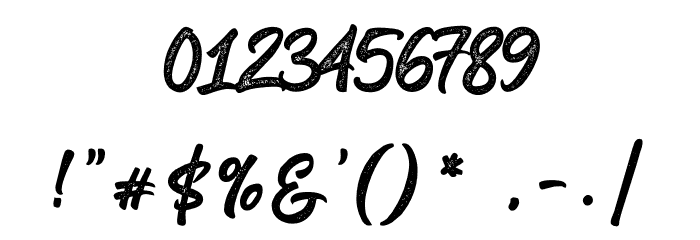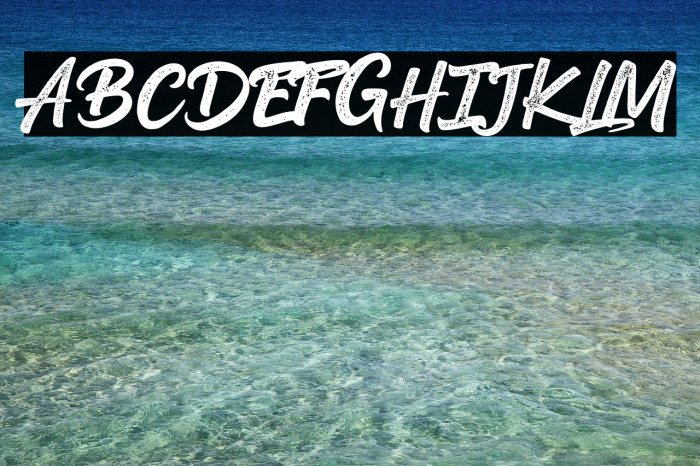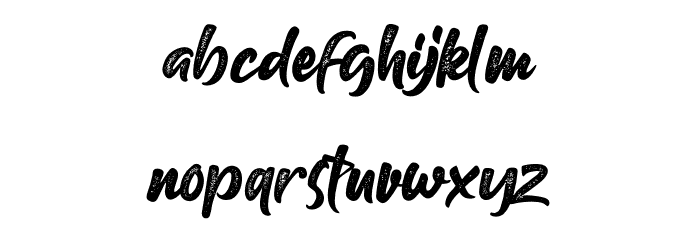
Gilberto Font
Gilberto Description
This font features a bold, brush script style with a textured appearance that gives it a dynamic and energetic feel. The uppercase letters are slightly slanted, adding a sense of movement, while the lowercase letters maintain a consistent flow, enhancing readability. The numbers and special characters are crafted with the same textured brush effect, ensuring a cohesive look throughout. The overall design is modern yet retains a touch of vintage charm, making it versatile for various creative applications. The font's unique texture and bold strokes make it stand out, ideal for projects that require a strong visual impact.
| Use Case | Logos, Headlines, Posters |
| Proposed Projects | Ideal for branding, posters, social media graphics, and packaging design. |